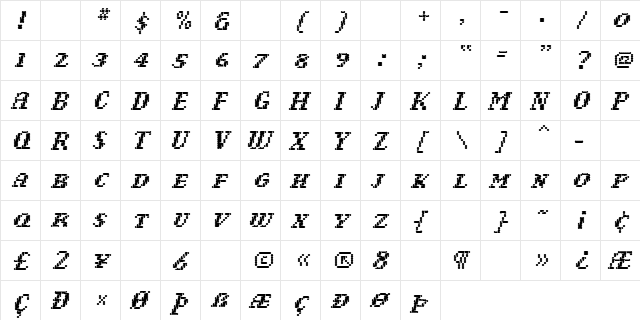
Woolly Medium Font Preview
Woolly Medium
| Designer | Philboyd Studge |
Design Context for Woolly Typeface
Woolly is a composed and adaptable typeface that performs quietly and consistently across a wide range of design contexts.